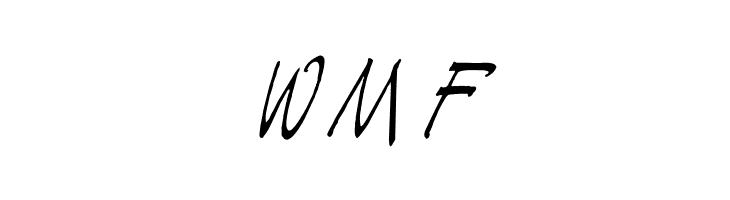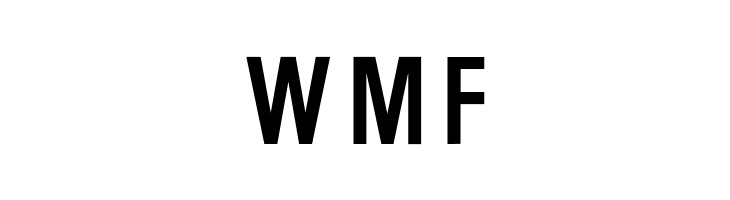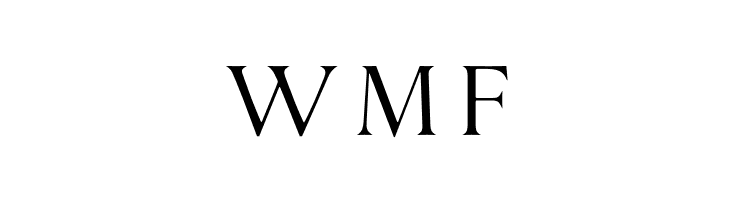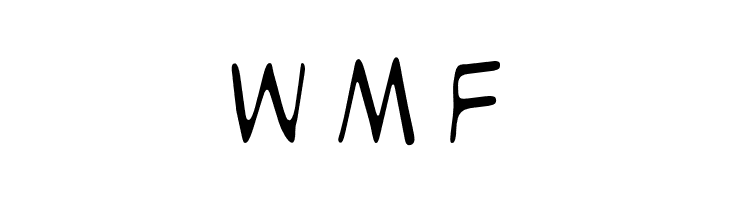
A classic serif font with elegant strokes and high contrast, ideal for traditional and sophisticated designs.
A classic serif font with medium weight and italic style, offering elegance and readability.
A dynamic script font with fluid, cursive letterforms and a handwritten feel.
A bold, modern font with strong, uniform strokes and excellent readability.
A playful, handwritten font with smooth, flowing lines and a light, airy appearance.
A bold, classic serif font with strong, pronounced serifs and a traditional appearance.
A clean, modern typeface with uniform stroke width and excellent readability.
A bold, modern sans-serif typeface with clean lines and strong presence.
A classic serif font with elegant strokes and a timeless design.
A playful, hand-drawn font with a cartoon-like style and rounded edges.